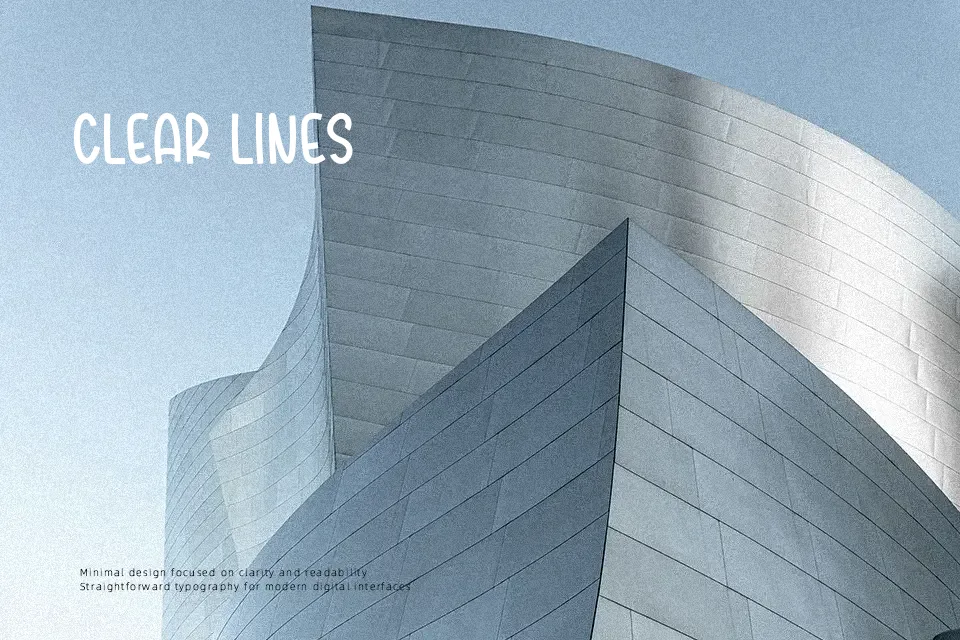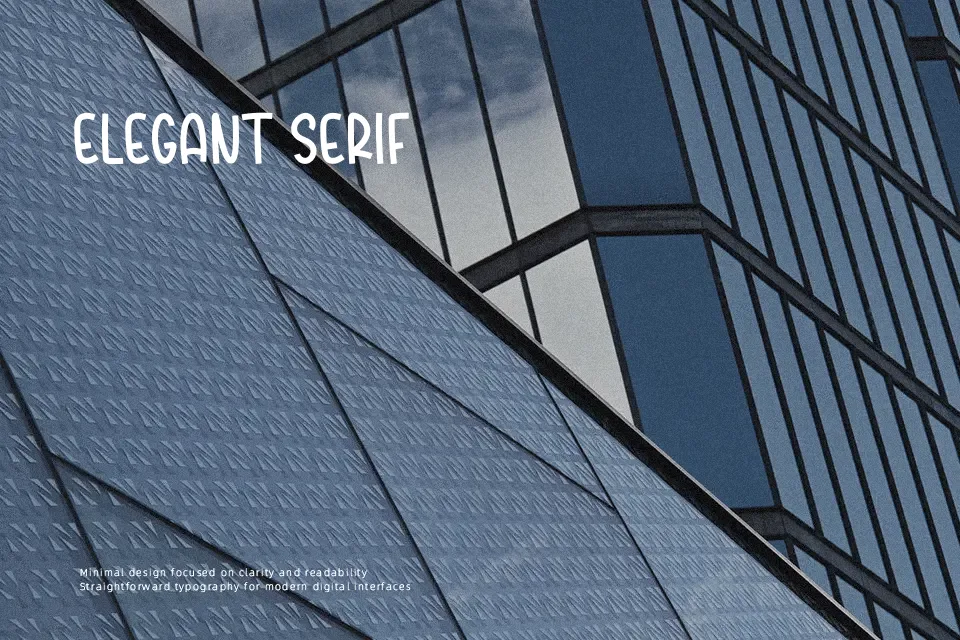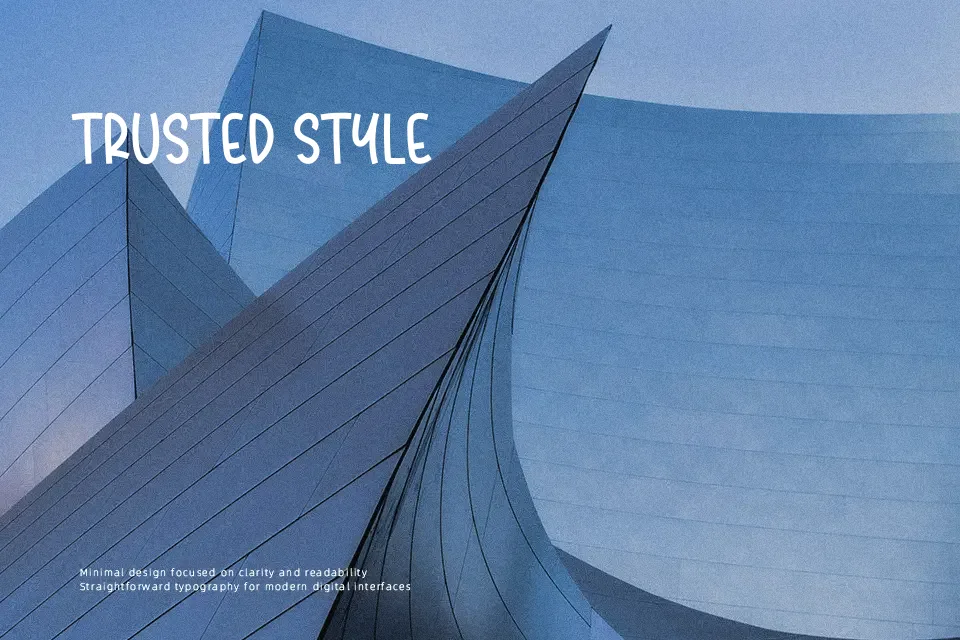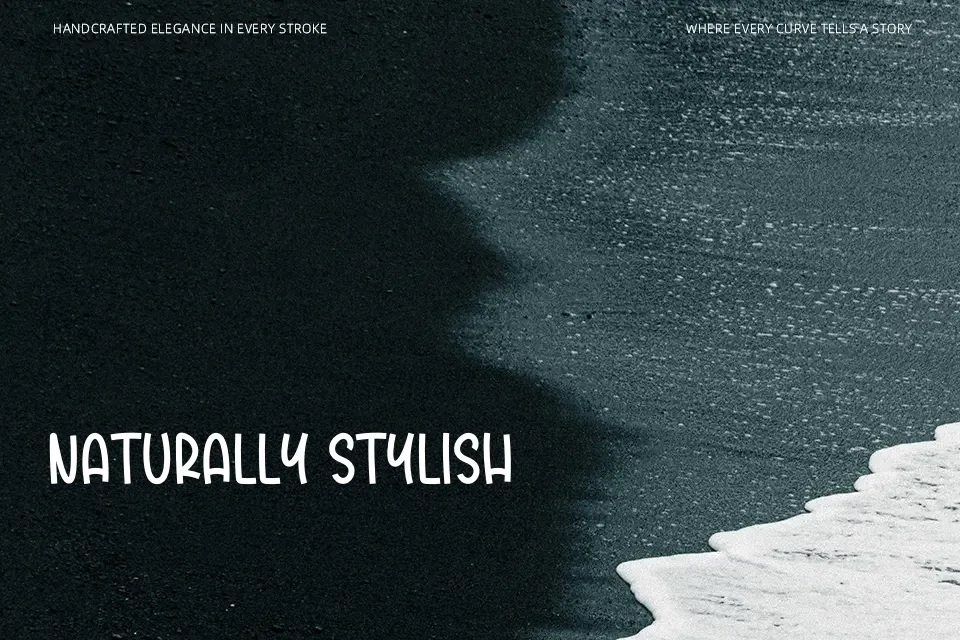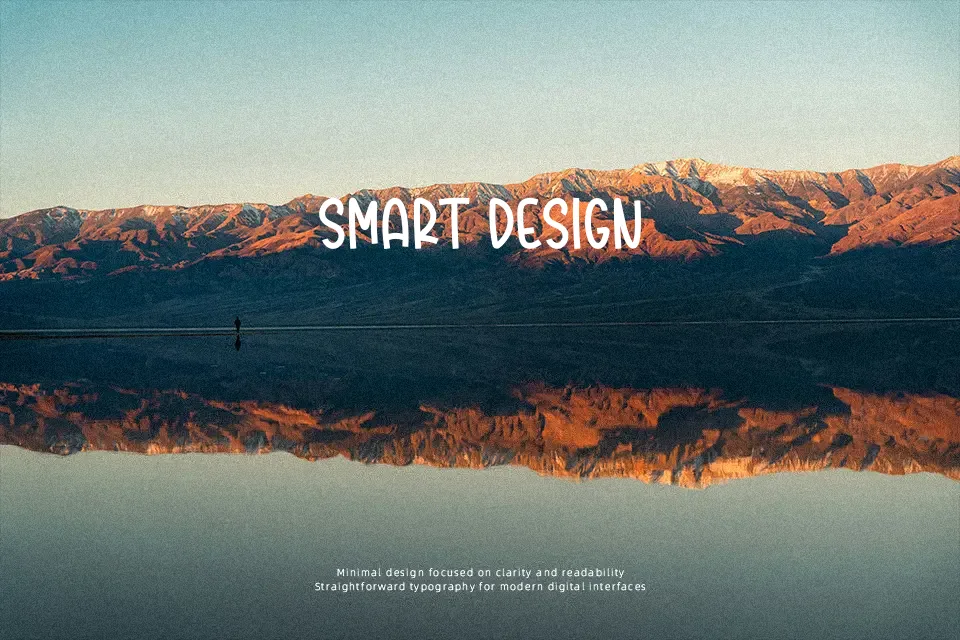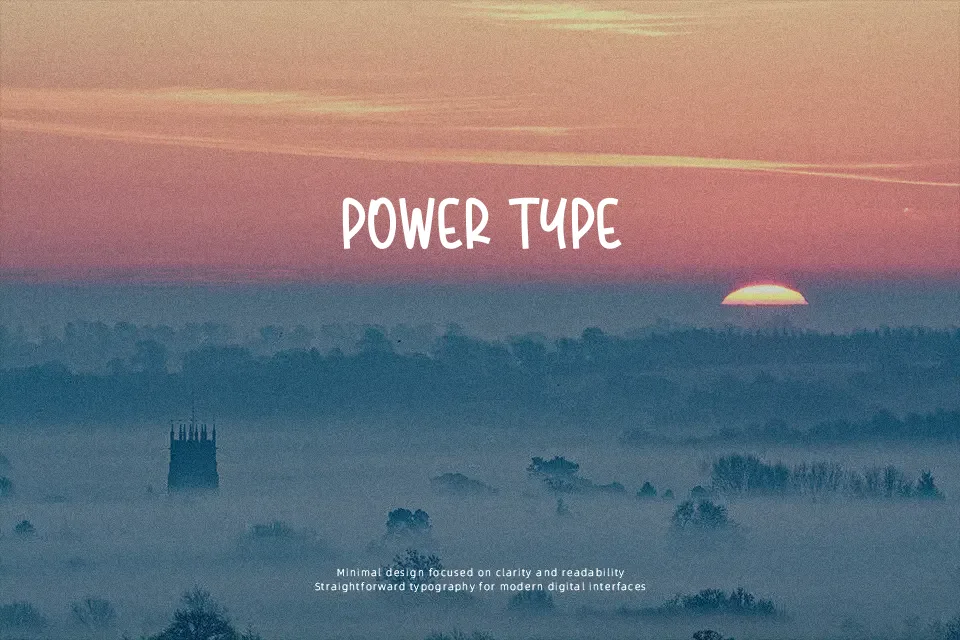
Santa History Font
Designed by Scratchones
Santa History Font introduces a lively cartoon display style built with irregular stroke weights, rounded terminals, and relaxed handwritten proportions. The uneven baseline rhythm and bouncy character alignment lend immediate warmth to short titles, though the informal geometry proves less effective for extended body copy or small interface captions. Generous interior counters preserve strong visual recognition in medium and large display formats, ensuring text stays crisp and engaging. It serves effectively when vibrant thematic character is needed for celebratory graphics, promotional banners, or thematic craft branding.
Best For: holiday greeting cards, festive product packaging, seasonal party invitations, children craft branding
Not Ideal For: long body copy, formal business correspondence, small mobile ui text, dense technical manuals
Perfect for holiday, invitation, and logo, with a cute and cartoon style.